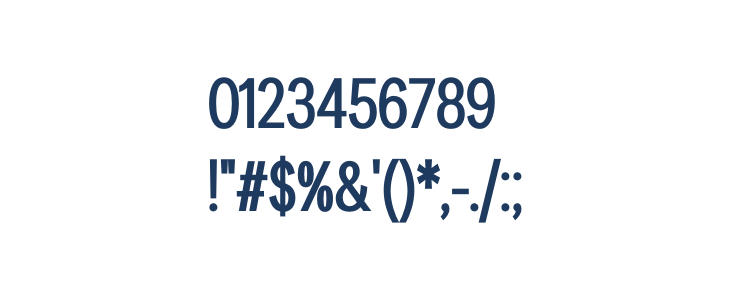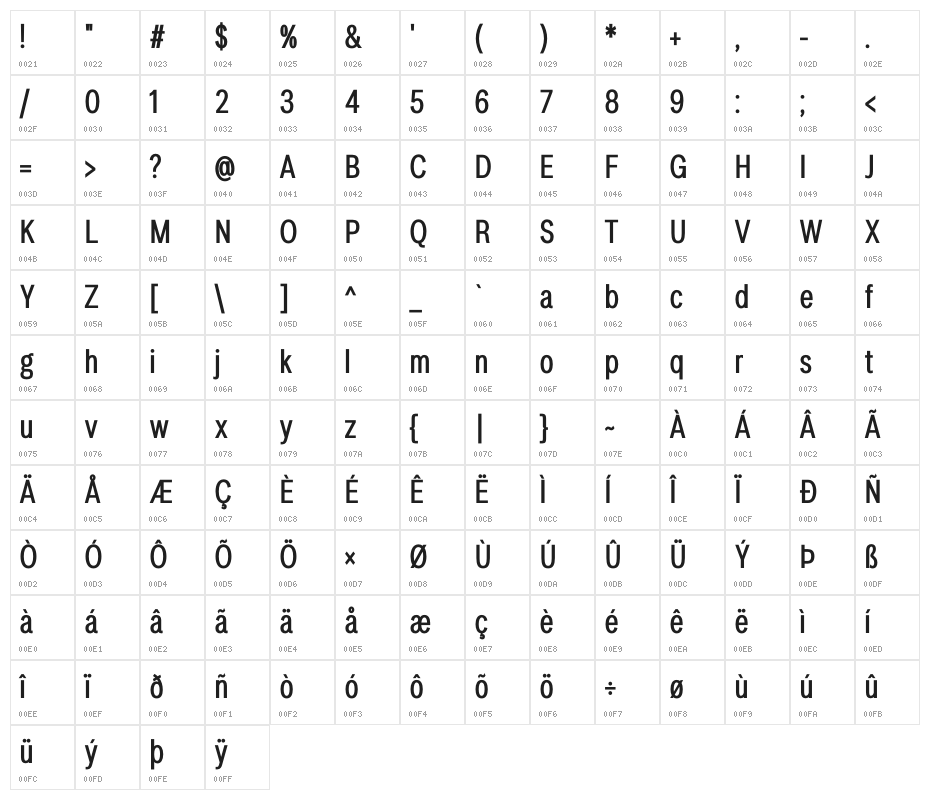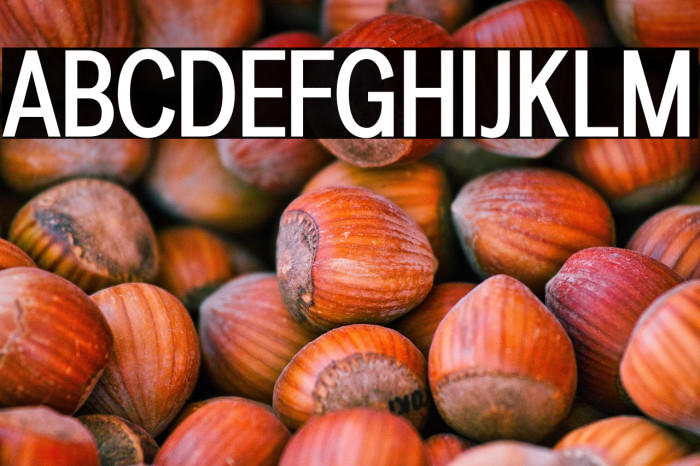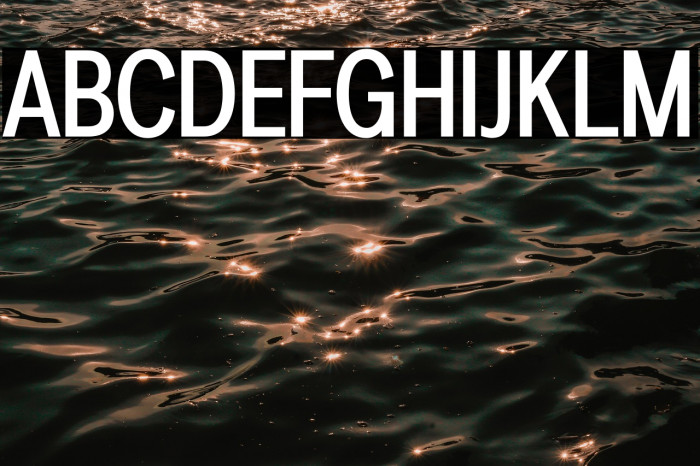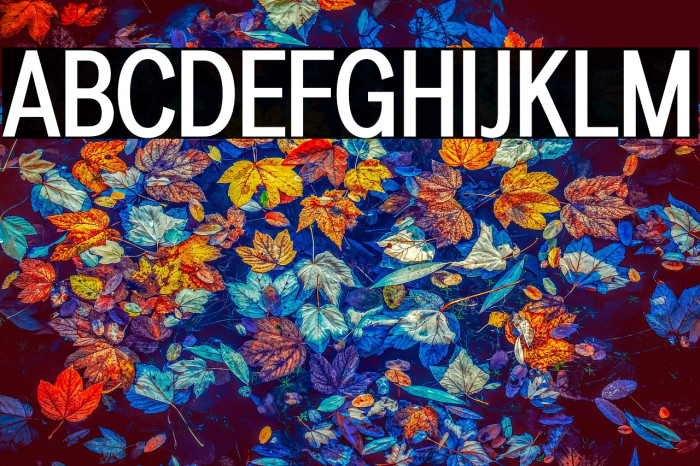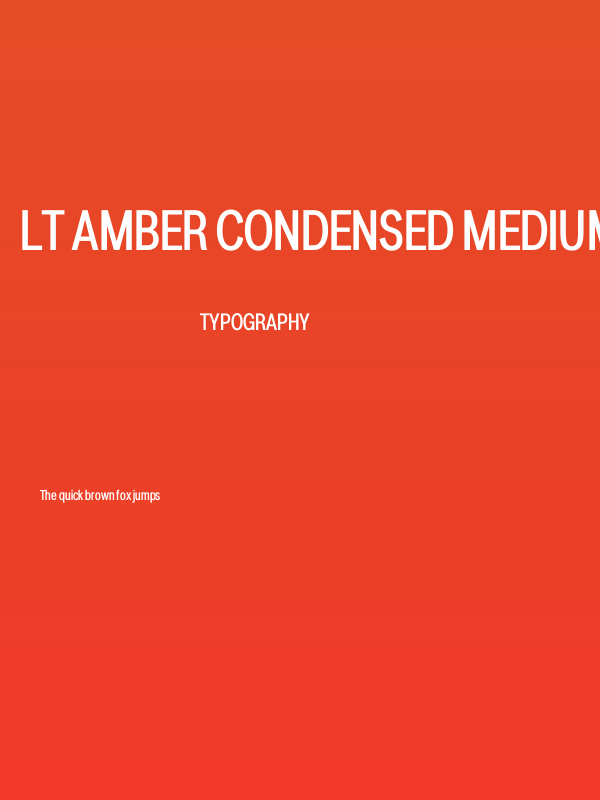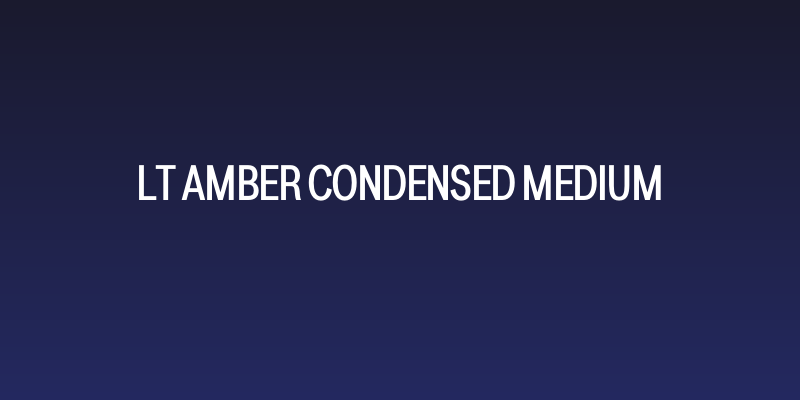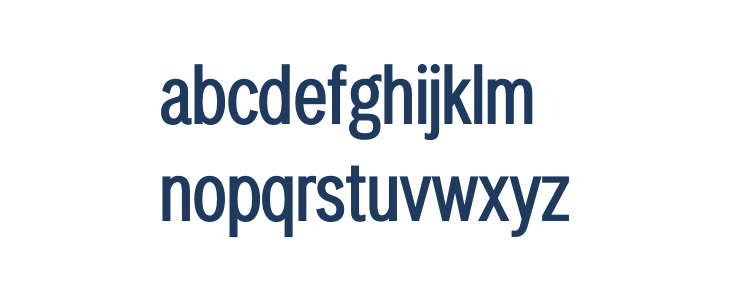
LT Amber Condensed Medium Font
LT Amber Condensed Medium Description
This font features a clean and modern sans-serif style with a condensed width, making it ideal for space-saving designs. The characters are bold and uniform, providing excellent readability. The uppercase and lowercase letters maintain a consistent height, while the numerals are clear and straightforward. Special characters are well-defined, adding versatility to the font's usage. The overall design is sleek and professional, suitable for a variety of applications.
| Proposed Projects | Ideal for headlines, posters, branding materials, and digital content where space is limited. |